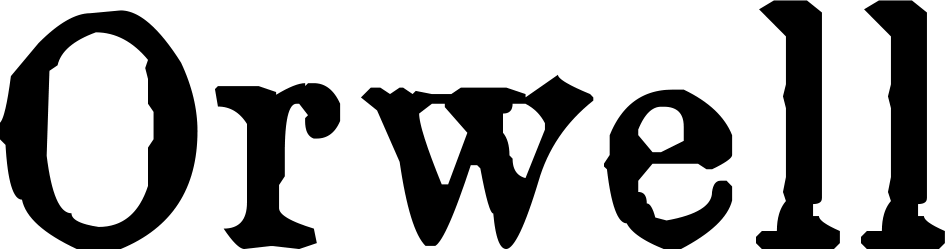
Orwell Font
Attracted to typewriter fonts?! Then it would be a very good idea to select and download the Orwell font! This typewriter font gives your typography a vintage feel plus, the best part is its realistic look. The bold characters provided are distressed and seem worn out to give your design a grunge feel.
Don’t worry about the letterforms, mixed letters, numbers, and punctuations are all available. What’s surprising is Orwell can be included in websites, movies, cards, logos, and more.
Based on an old George Orwell book.